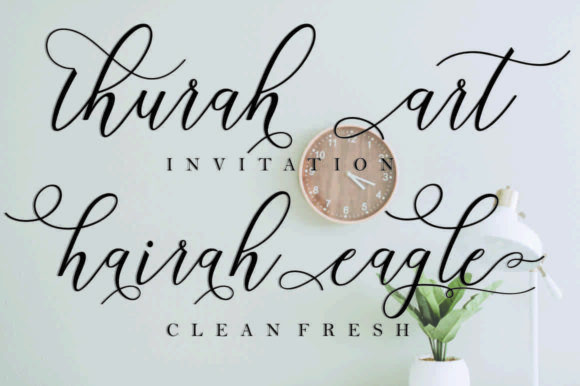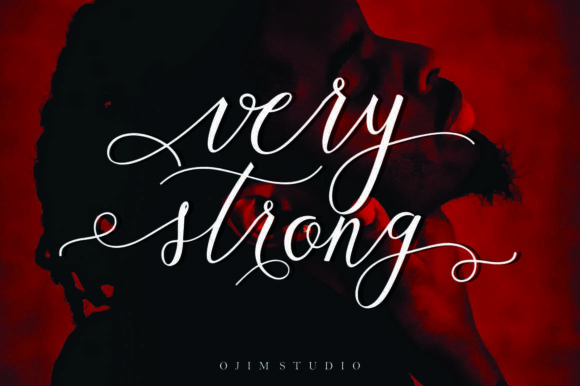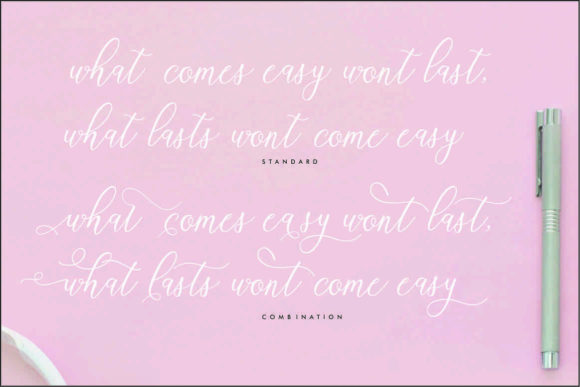
Introducing the Elegance of Guardian Script Font
In the realm of typography, the right font can elevate a design from ordinary to extraordinary. For those seeking a touch of luxury and sophistication, the Guardian Script Font is an exceptional choice. This modern script font, with its fluid lines and elegant curves, is designed to bring a sense of high-end quality to any project it’s a part of.
The Essence of Guardian Script Font
The Guardian Script Font is characterized by its luxurious feel, making it perfect for applications where an upscale appearance is desired. Its handwritten nature lends a personal and unique touch to designs, setting them apart from more conventional typefaces. Whether it’s for headlines, logotypes, apparel, invitations, branding, packaging, advertising, or any other creative endeavor, this font is versatile and adaptable.
One of the standout features of the Guardian Script Font is its versatility. It’s a font that can seamlessly transition across various mediums and applications. Here are some of the areas where Guardian Script Font truly shines:
- Headlines and Logotypes: Its bold and elegant strokes make it an excellent choice for headlines and logotypes, giving brands a memorable and impactful identity.
- Apparel: For designers looking to create custom apparel with a personal touch, Guardian Script Font offers a stylish and sophisticated option.
- Invitations: Whether it’s a wedding invitation, a birthday party invite, or any other special occasion, this font adds a touch of class and elegance.
- Branding and Packaging: For businesses aiming to convey luxury and quality, Guardian Script Font can be a valuable asset in their branding and packaging strategies.
- Advertising: In advertising, capturing the audience’s attention is crucial. The unique and luxurious feel of this font can help brands stand out in a crowded market.
Why Choose Guardian Script Font?
Choosing a font for a design project can be overwhelming, given the numerous options available. However, Guardian Script Font stands out for several reasons:
- Unique and Memorable: Its distinctive style ensures that any design it’s used in will be memorable and eye-catching.
- Elegant and Luxurious: The font exudes a sense of luxury, making it ideal for high-end brands and sophisticated designs.
- Highly Versatile: Its adaptability across different mediums and applications makes it a practical choice for a wide range of projects.
- User-Friendly: Despite its sophisticated appearance, Guardian Script Font is easy to read and use, ensuring that it doesn’t compromise on functionality.
Tips for Using Guardian Script Font
To make the most out of Guardian Script Font, consider the following tips:
- Pair it Wisely: Combining it with a simple sans-serif font for body text can create a balanced and harmonious design.
- Use it Sparingly: While it’s elegant, using it sparingly for headlines or key messages can have a greater impact than overusing it.
- Play with Colors: The font looks stunning in metallic colors or rich tones that can enhance its luxurious feel.
| Font Name | Guardian Script Font |
| Author | InkwellTypeCo |
Guardian Script Font is more than just a typeface; it’s a design statement. Its luxurious feel, versatility, and unique charm make it an excellent choice for designers and crafters looking to add a touch of elegance to their projects. Whether you’re working on a high-end brand identity, a special invitation, or any other creative project, Guardian Script Font is sure to leave a lasting impression.